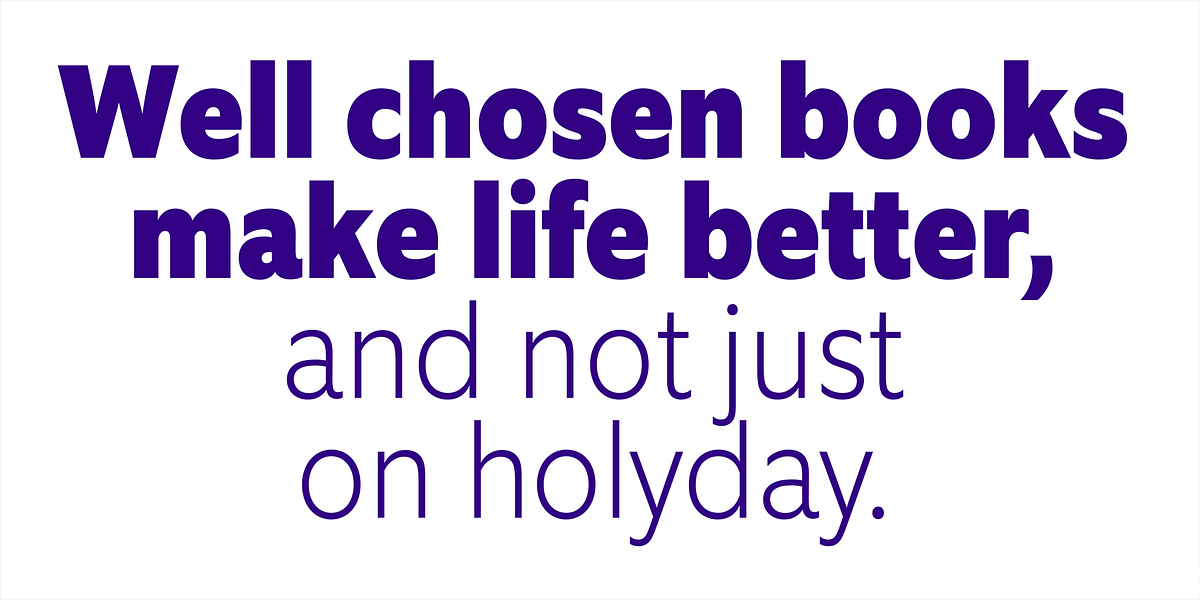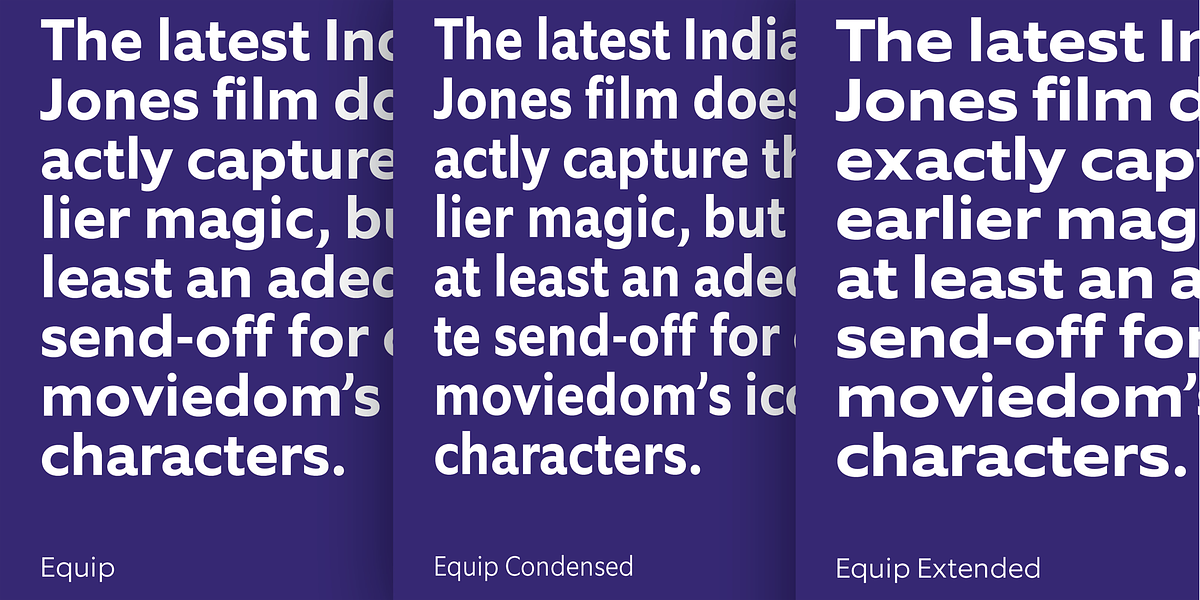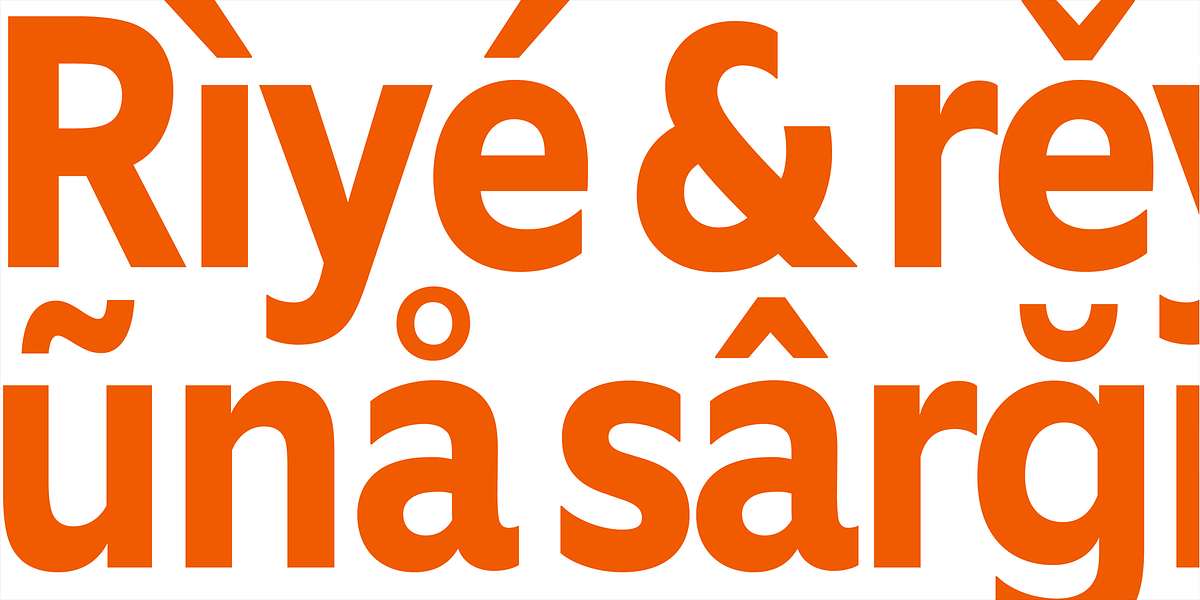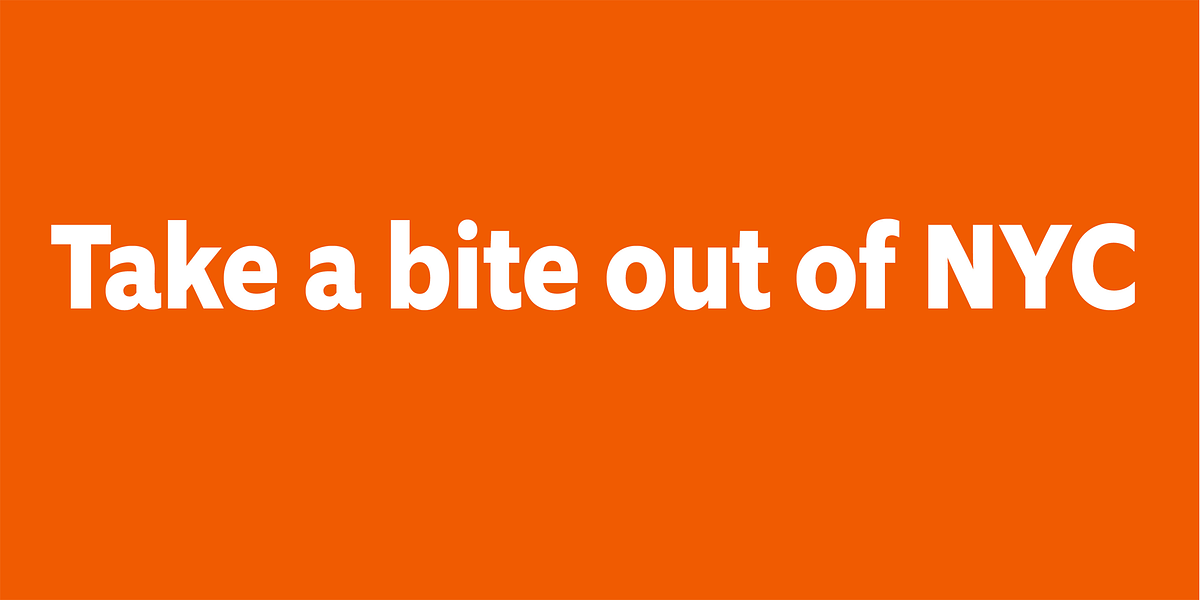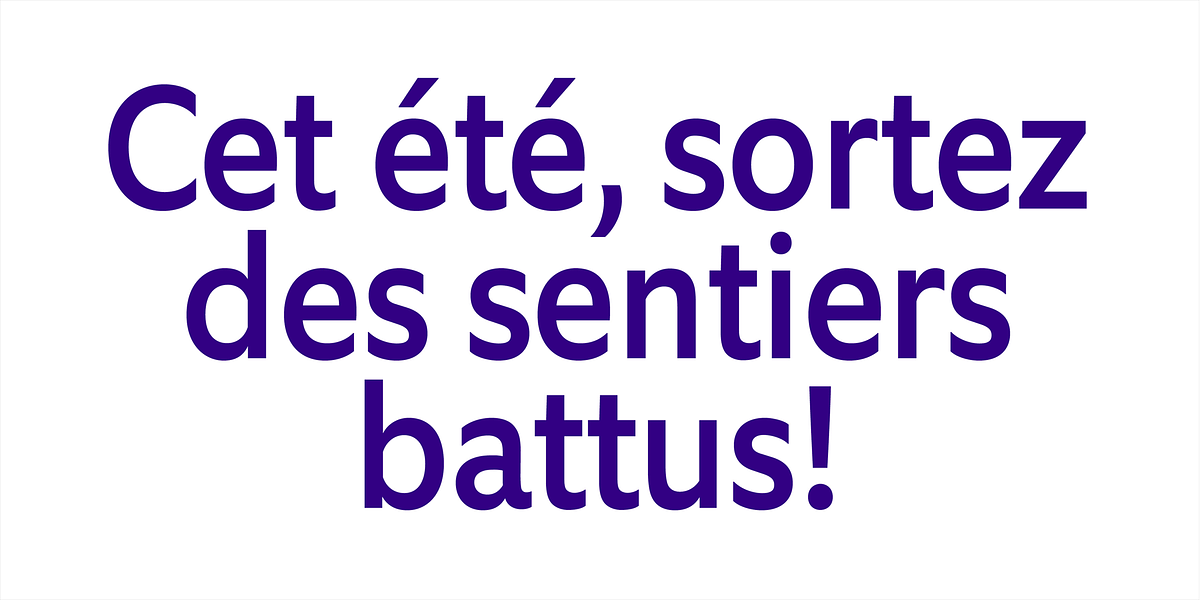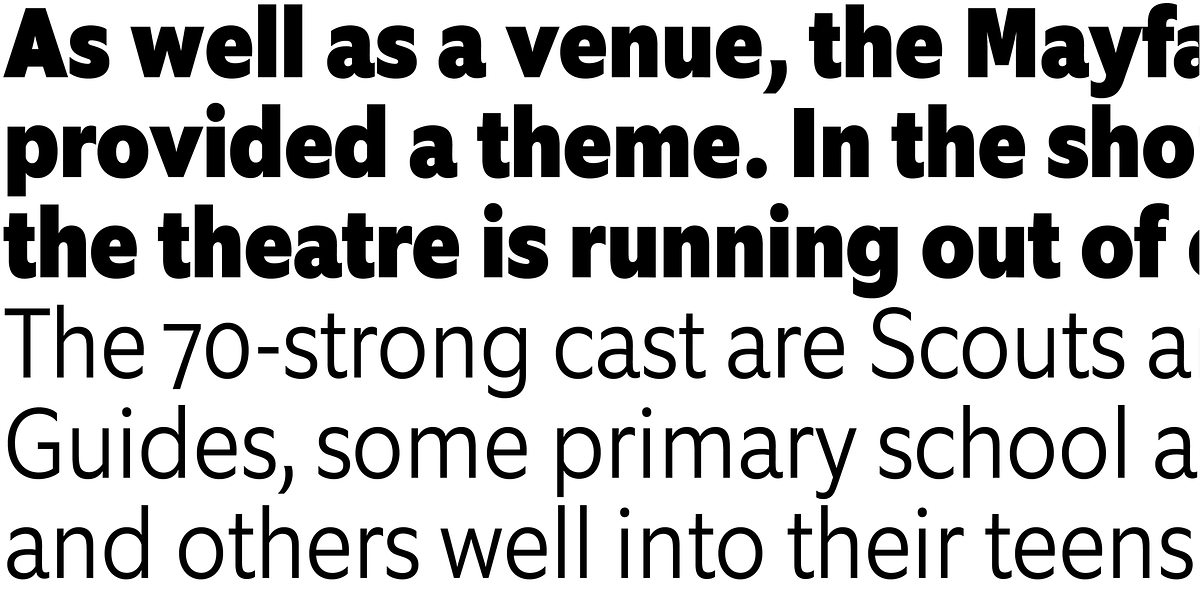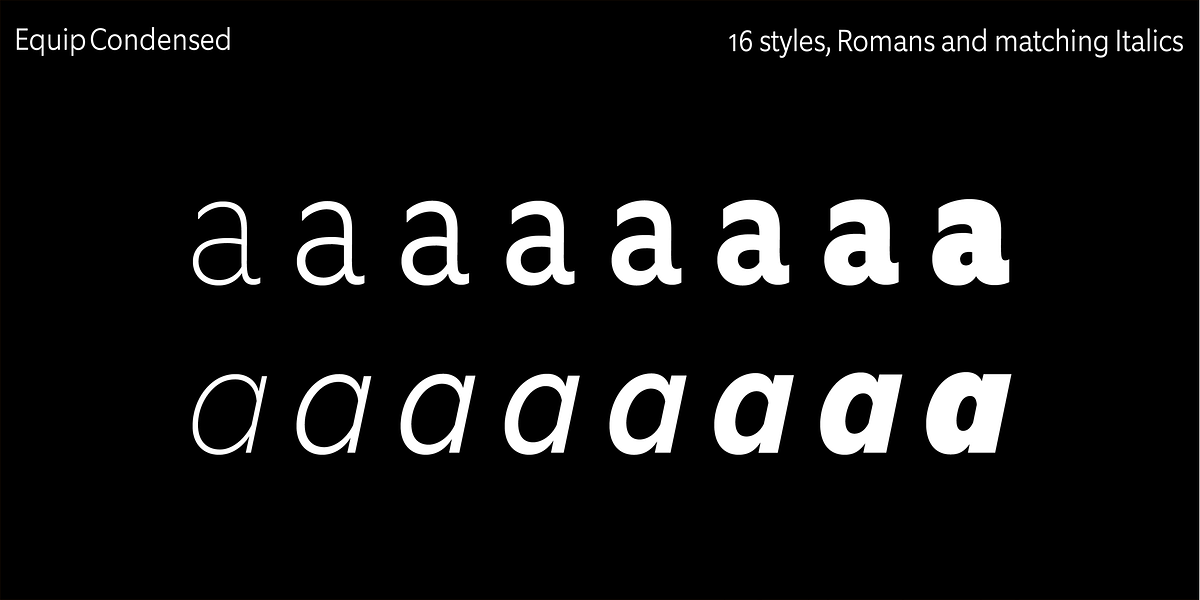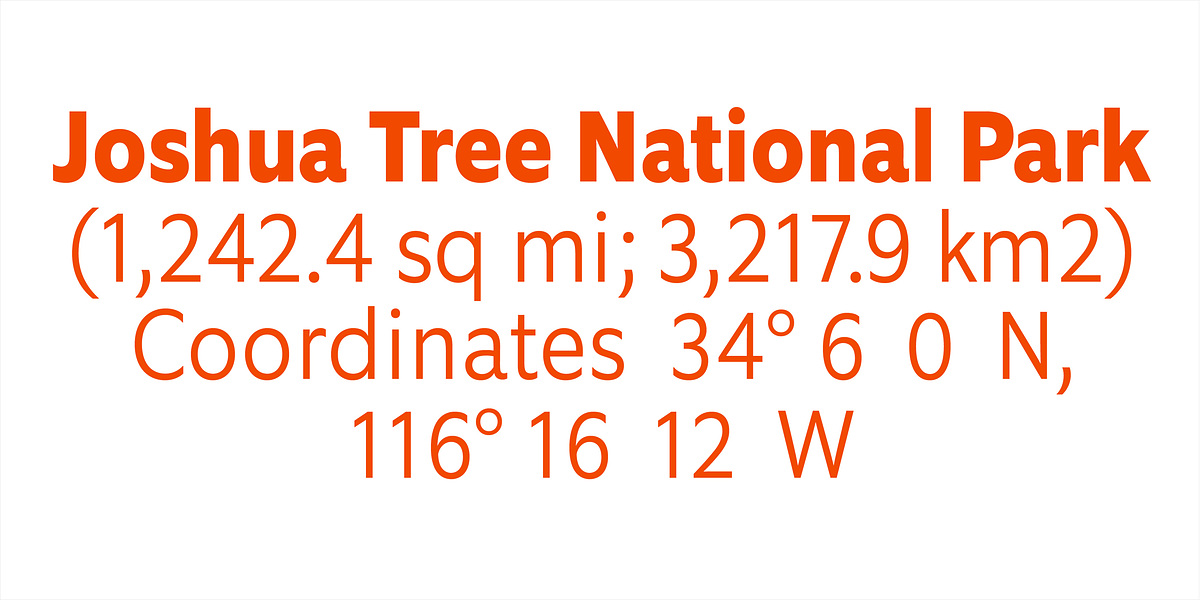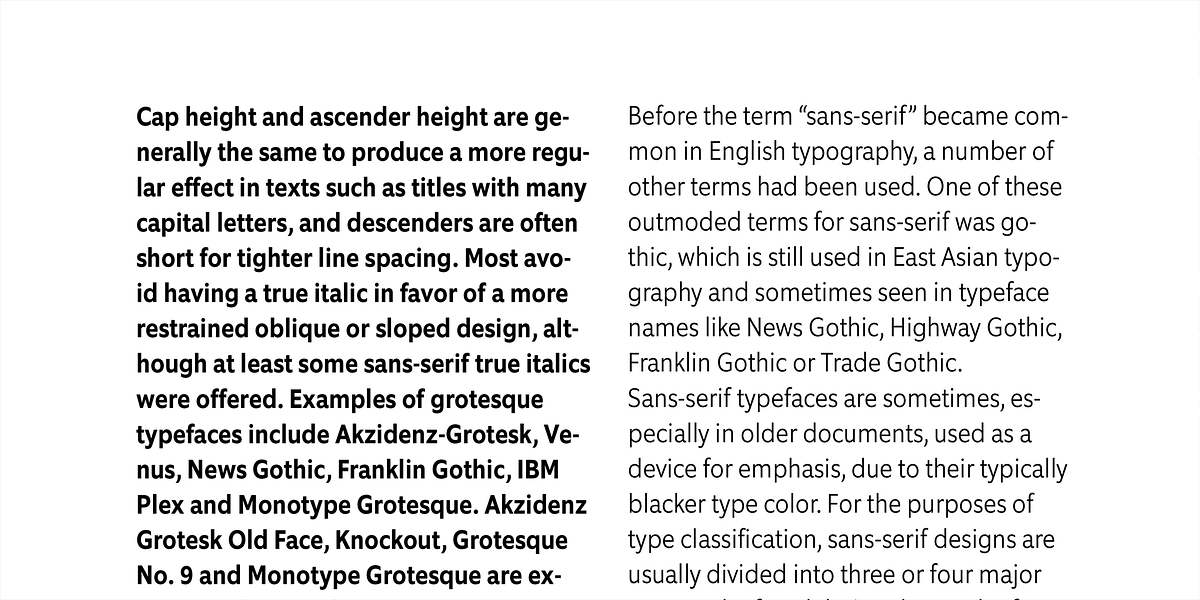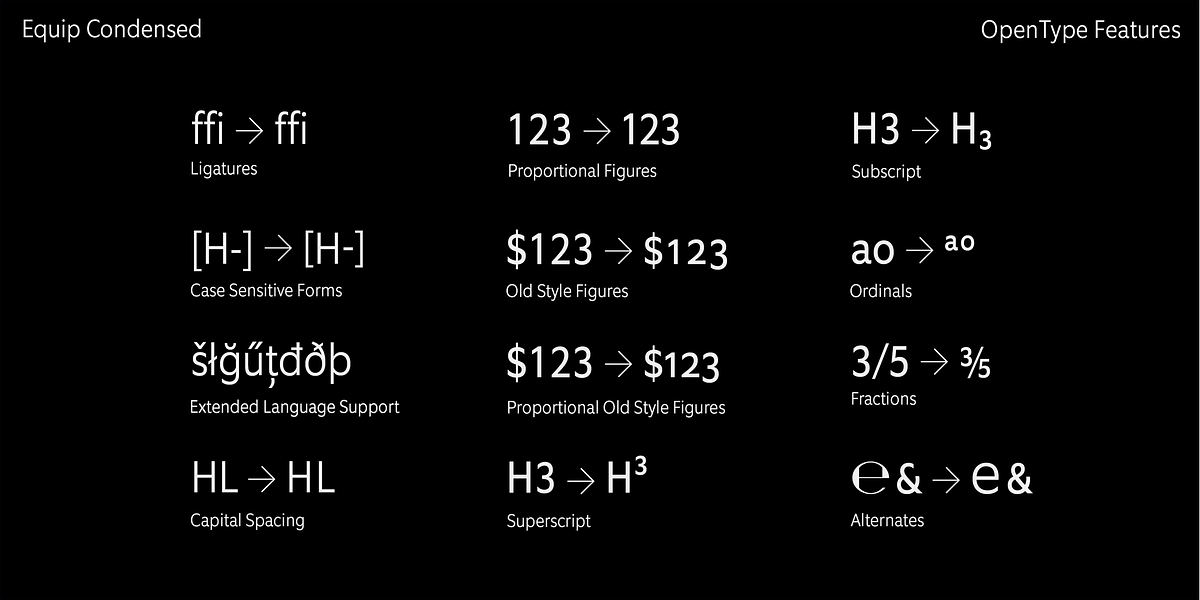
EquipCondensed
EquipCondensed is a neo-grotesque sans serif typeface designed for versatility. Its moderate width allows it to be used efficiently in body text while still maintaining readability. The font family includes a range of weights and supports extended language characters. EquipCondensed also features typographic niceties like semi-ligatures, various figure styles, and currency symbols.